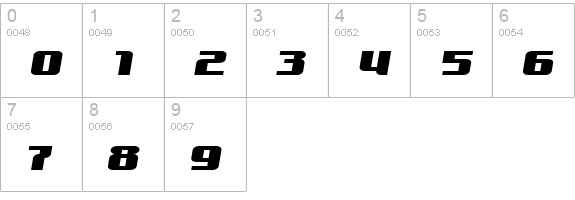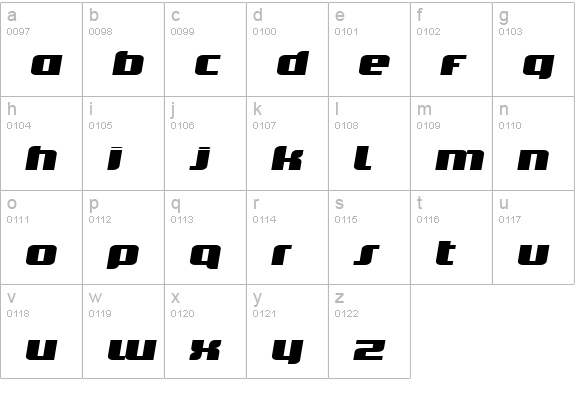
TransOblique Font Details
TransOblique is a modern and stylish font that adds a touch of elegance and sophistication to any design project. Its unique oblique style provides a subtle twist to the traditional letterforms, making it stand out from the crowd. With its sleek and contemporary aesthetic, TransOblique is the perfect choice for branding, logo design, headlines, and more. This versatile font offers a wide range of weights and styles, allowing you to create various typographic compositions that suit your needs. Whether you want to convey a sense of professionalism, creativity, or playfulness, TransOblique has got you covered. One of the best things about TransOblique is that it is free. Yes, you read that right! This high-quality font is freely available to download at FontsMarket.com. So, you can enjoy all the benefits and beauty of TransOblique without spending a dime. Downloading TransOblique from FontsMarket.com is quick and easy. Simply visit the website, search for TransOblique, and click the download button. In just a few seconds, you'll have this incredible font ready to use in your design projects. So why wait? Elevate your designs to the next level with TransOblique. Download this amazing font for free at FontsMarket.com today and let your creativity soar.